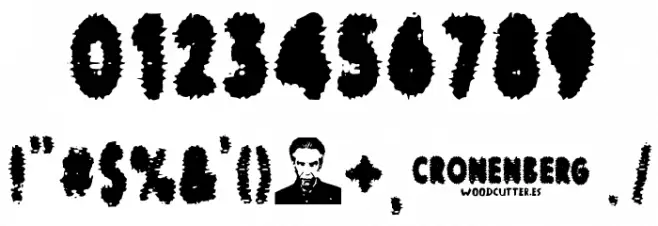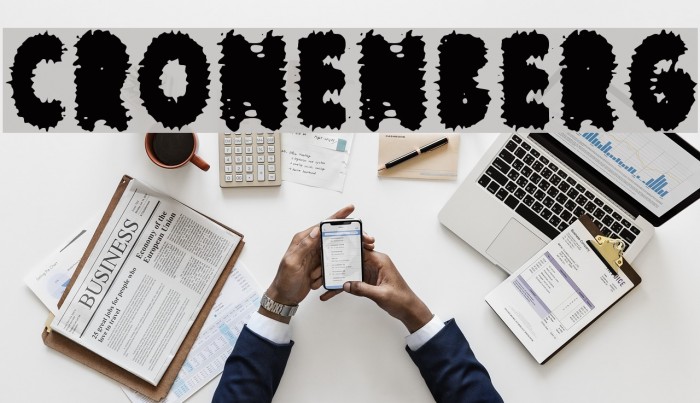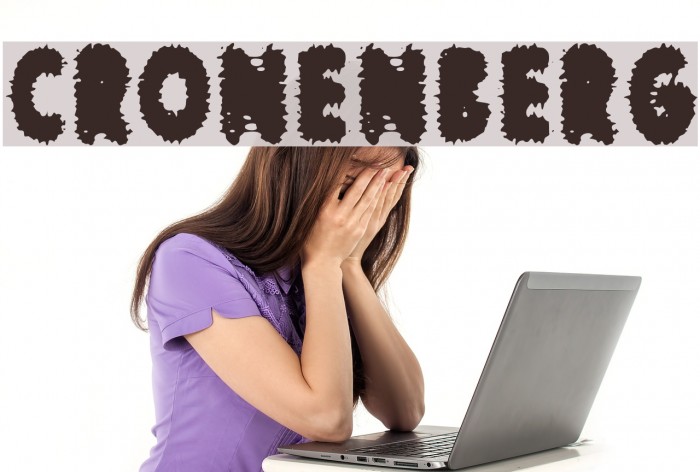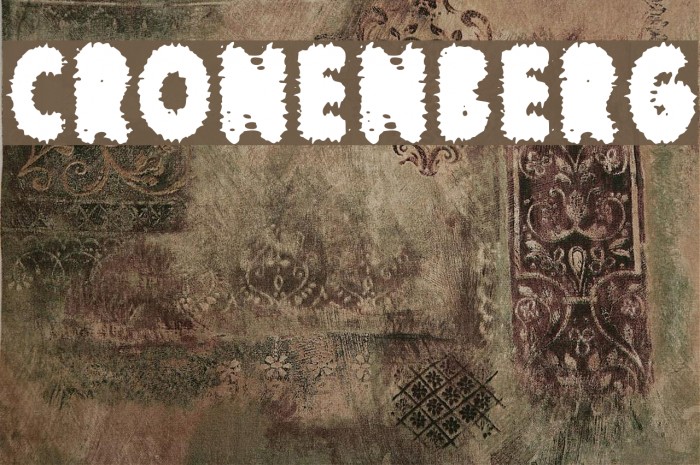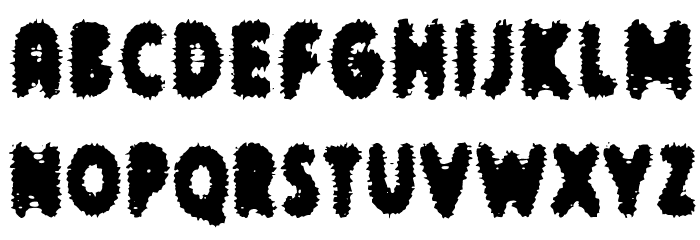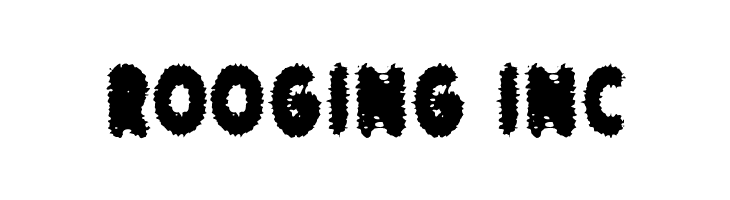
cronenberg Font
cronenberg Description
This font features a bold and highly decorative style, characterized by its unique, irregular edges that give it a textured, almost organic appearance. The letters are thick and substantial, creating a strong visual impact. The font's design is reminiscent of horror or science fiction themes, making it ideal for projects that require a dramatic and eye-catching typeface. Its distinctiveness lies in the jagged, uneven outlines of each character, which suggest movement and energy. This font is not suited for body text due to its complex design but excels in headlines or titles where a bold statement is needed.
A bold, decorative font with irregular, textured edges, perfect for dramatic headlines from Horror fonts.
- Proposed Projects: Ideal for horror movie posters, Halloween event flyers, or any project needing a bold, dramatic typeface.